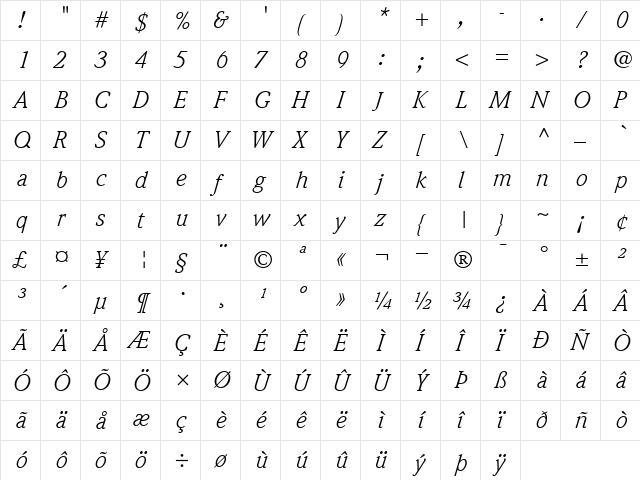
ITCWeidemann-Book BookItalic Font Preview
ITCWeidemann-Book BookItalic
Design Context for ITCWeidemann-Book Typeface
ITCWeidemann-Book offers clean, dependable letterforms without strong stylistic allegiance, making it a practical choice for designers who need flexibility. The dynamic lean of this cut emphasises speed and emphasis in any layout.
Pro Tip: Try ITCWeidemann-Book for annotation and caption copy alongside an upright companion — the contrast in angle creates a dynamic but ordered typographic system.